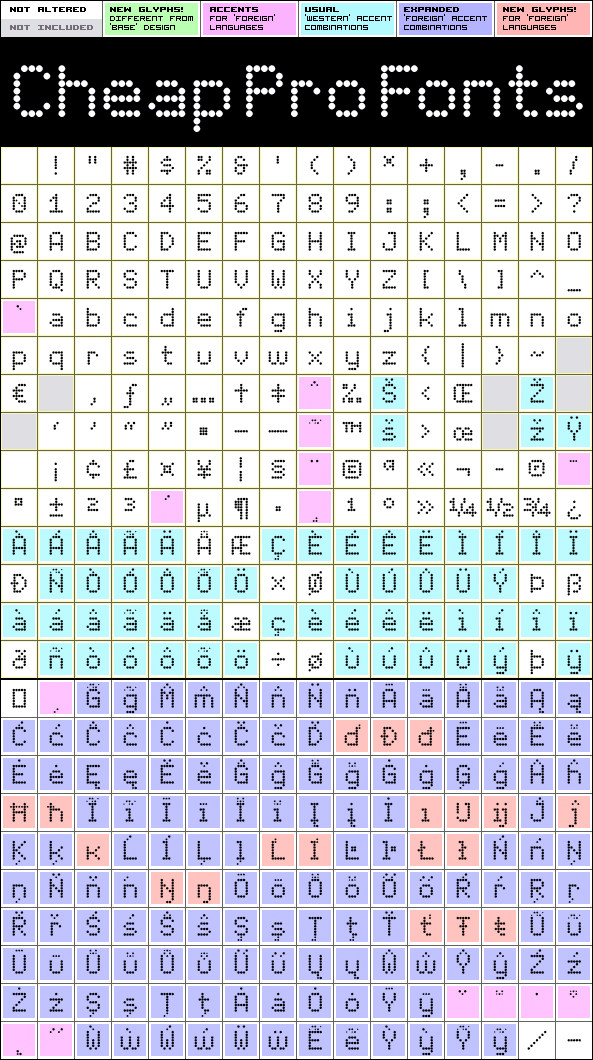
Matrise Pro
Matrise Pro by Roger S. Nelsson
105 class kernpairs
= 2181 kerning pairs
A new font in the style of a dot matrix/needle-printer. I have used some slightly smaller dots when designing the diacritics - this makes them easier to separate from the main letters. I have also used variable letter widths (and kerning), as opposed to the technology's original monospaced design - this to make the text more readable :)
Matrise Pro is a professionally reworked font that contains an extended character set for setting text in 65 languages requiring more than the basic A-Z!